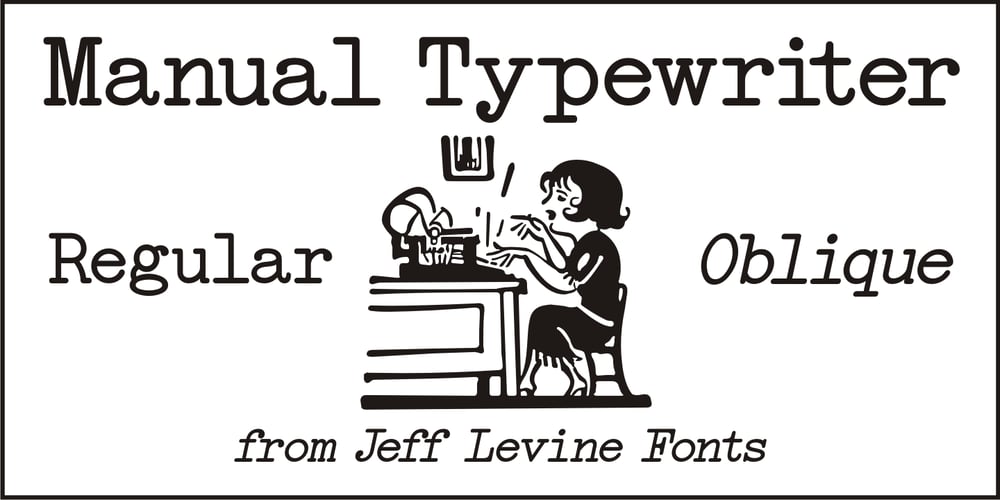
Manual Typewriter JNL
Manual Typewriter JNL font
Manual Typewriter JNL Font Family was designed by Jeff Levine and published by Jeff Levine. Manual Typewriter JNL contains 2 styles and family package options. Manual Typewriter JNL was modeled from an example of the 1933 design originally created by Morris Fuller Benton, and is available in both regular and oblique versions.